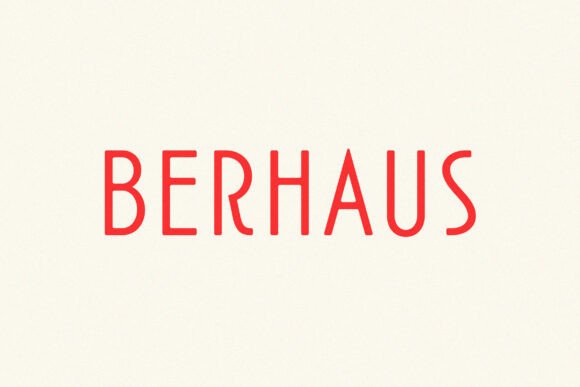
Discover the Elegance of Berhaus Font: A Modern Classic for Creative Projects
A First Impression: What Makes Berhaus Stand Out
Berhaus is a modern and elegant font, best used as a display for headings, logos, branding, magazines, product packaging, and invitations. Its clean lines and smooth curves give any project an extra touch of class. Whether you’re a designer, crafter, or creative hobbyist, Berhaus is sure to impress.
• Elegant and modern design: Perfect for high-end branding and luxury projects.
• Clean lines and smooth curves: Makes it easy to read and visually appealing.
• 💡 Versatile: Suitable for various design applications, from headings to logos.
• 🤔 Limited use for body text: Berhaus is best used for display purposes, as it may not be suitable for long-form reading.
• ⚠️ Some glyphs may require manual adjustment: Depending on the design, you might need to tweak certain glyphs for optimal spacing and alignment.
The Story Behind Berhaus: Designer Inspiration
Berhaus was designed with the goal of creating a modern and elegant font that would cater to the needs of designers and creative professionals. Inspired by the works of renowned typographers and designers, Berhaus combines clean lines, smooth curves, and a touch of sophistication to create a truly unique font.
Font Name Berhaus Font
Author BrandSemut
Q: What is Berhaus font best used for?
A: Berhaus is best used for display purposes, such as headings, logos, branding, magazines, product packaging, and invitations.
Q: Can I use Berhaus for body text?
A: While Berhaus is a beautiful font, it’s not ideal for long-form reading. It’s best used for display purposes to add visual interest and elegance to your design.
Q: Does Berhaus support OpenType features?
A: Yes, Berhaus supports OpenType features, including stylistic alternates, glyphs, and ligatures, which can be accessed in compatible design software.